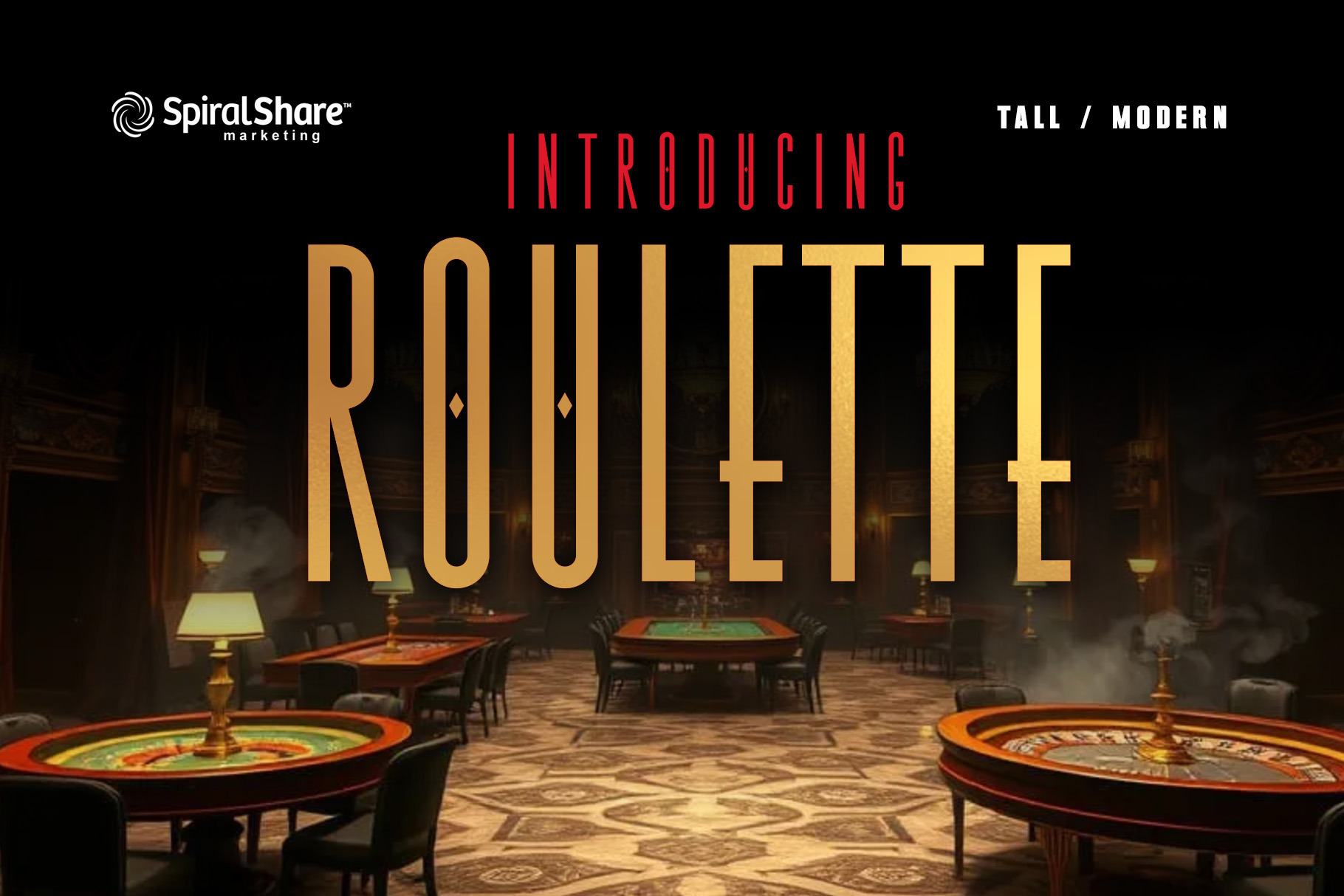
Roulette Tall Casino Style Font
Step into Vintage Glamour with ROULETTE—A Tall, Elegant Retro Casino Font!
Inspired by the glitz and glamour of old Las Vegas, ROULETTE captures the timeless allure of retro casino style. With its tall, sleek lines and elegant curves, this font brings a touch of sophistication and vintage charm to any design.
Perfect for branding, logos, signage, posters, invitations, and social media, ROULETTE evokes the excitement of neon lights, high-stakes games, and classic Vegas nightlife. Whether you're creating eye-catching headlines, stylish event materials, or luxurious branding, this typeface delivers a winning combination of nostalgia and modern elegance.
Roll the dice and make a statement—ROULETTE is your ticket to stunning, high-class design!